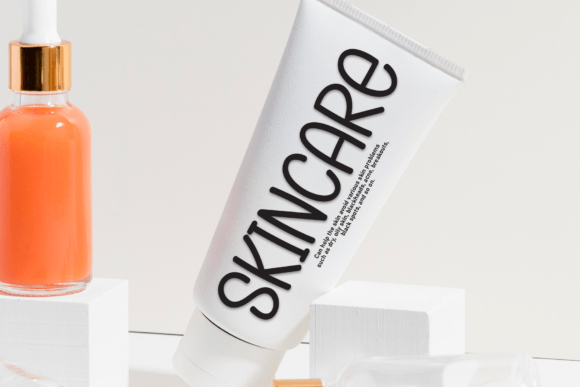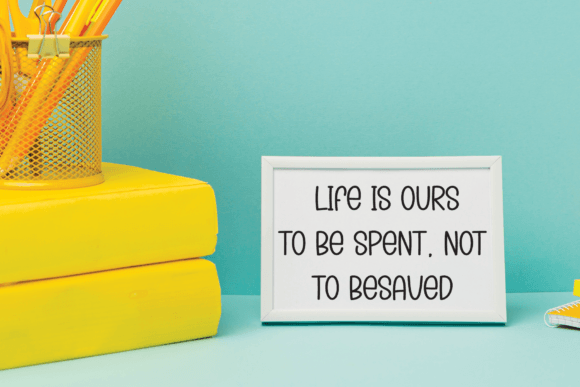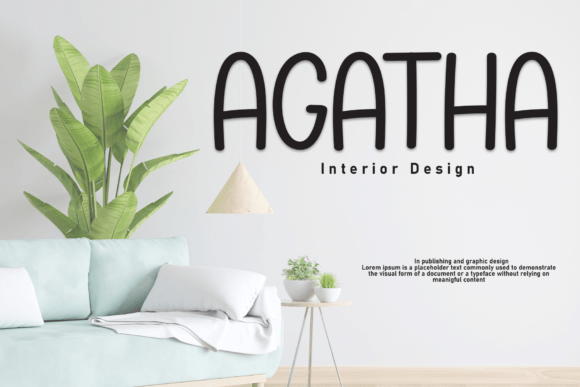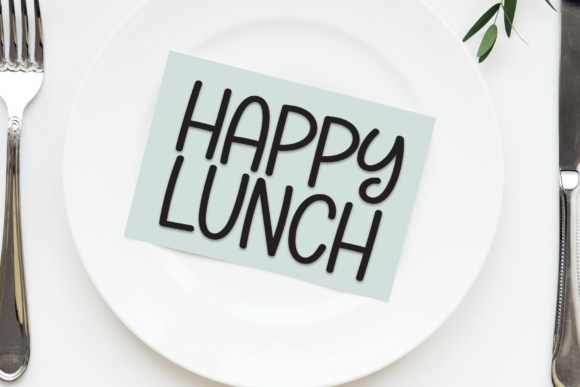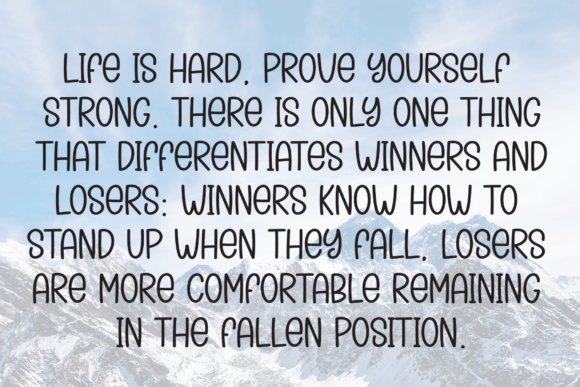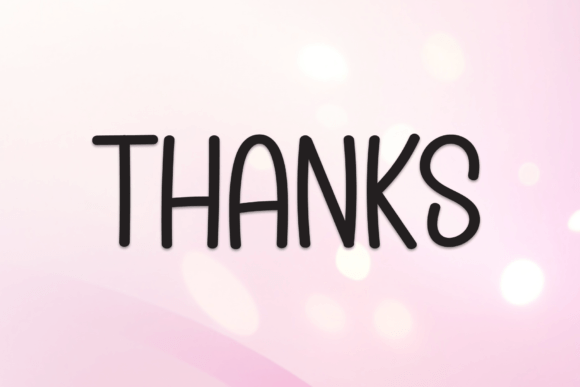
The Perfect Pen Stroke: Unlocking the Magic of Beauty Sometime Font
Have you ever stared at a blank page, pen in hand, waiting for that perfect idea to strike? The blank canvas can be intimidating, but sometimes it’s just what we need to let our creativity shine. For designers, the challenge is always to find that perfect font that brings our vision to life.
Enter Beauty Sometime Font, a sweet and friendly handwritten font that’s sure to capture the hearts of designers everywhere. Its natural and unique style makes it incredibly fitting to a large pool of designs, from invitations to branding materials. Whether you’re a seasoned pro or just starting out, Beauty Sometime Font is the perfect tool to help you express your creativity and bring your ideas to life.
Beauty Sometime Font Key Features
- Unique Characteristics: The Beauty Sometime font features a unique, hand-drawn design with intricate details and subtle flourishes, giving it a distinctive and elegant look.
Beauty Sometime Font Review
Overall, I’d say the Beauty Sometime Font is a visually appealing choice for designers. ✨ Its unique blend of modern and vintage elements makes it perfect for projects that require a touch of sophistication.
However, I do have some reservations about the Beauty Sometime Font. ⚠️ Here are a few limitations I’ve encountered:
- Lack of Consistency: At times, the font’s stylistic variations can feel inconsistent, making it challenging to maintain a cohesive look across different elements.
- Over-Reliance on Effects: The font’s unique features can be overwhelming if not used judiciously, leading to a “busy” or cluttered design.
Despite these limitations, I think the Beauty Sometime Font is a great choice for designers who want to add some visual interest to their projects. With careful use and attention to balance, this font can be a powerful tool in a designer’s toolkit.
Beauty Sometime Font Practical Application Guide
For the most striking results, pair the Beauty Sometime font with images or graphics that evoke a sense of elegance and sophistication. Use it for:
- High-end product packaging and branding
- Luxury event invitations and promotional materials